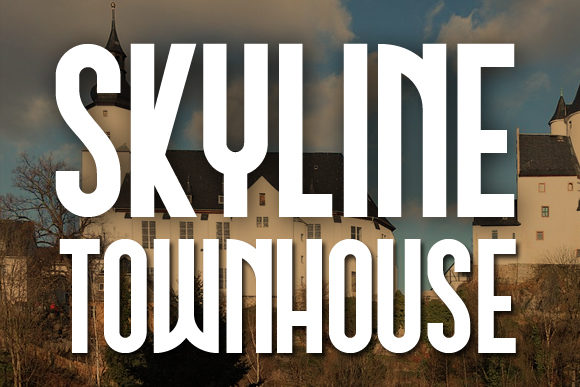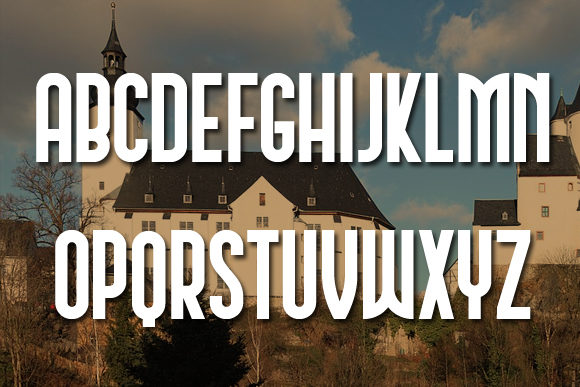
Introduction to Schwarzenberg Font
Schwarzenberg is an awesome gothic-inspired display font family.
It will add an exciting touch to any crafting project .
Schwarzenberg Font offers exceptional quality and versatility, making it a valuable addition to your design toolkit. Whether you’re creating for personal projects or commercial use, Schwarzenberg Font delivers professional results.